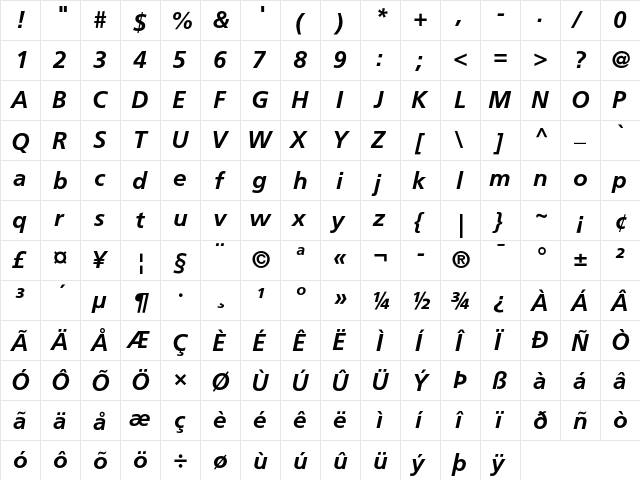
Frutiger 66 Bold Italic
Design Context for Frutiger Typeface
Frutiger is a composed and adaptable typeface that performs quietly and consistently across a wide range of design contexts. The dynamic lean of this cut emphasises speed and emphasis in any layout. The heavy weight commands attention and anchors typographic hierarchies.
Pro Tip: Try Frutiger for annotation and caption copy alongside an upright companion — the contrast in angle creates a dynamic but ordered typographic system.